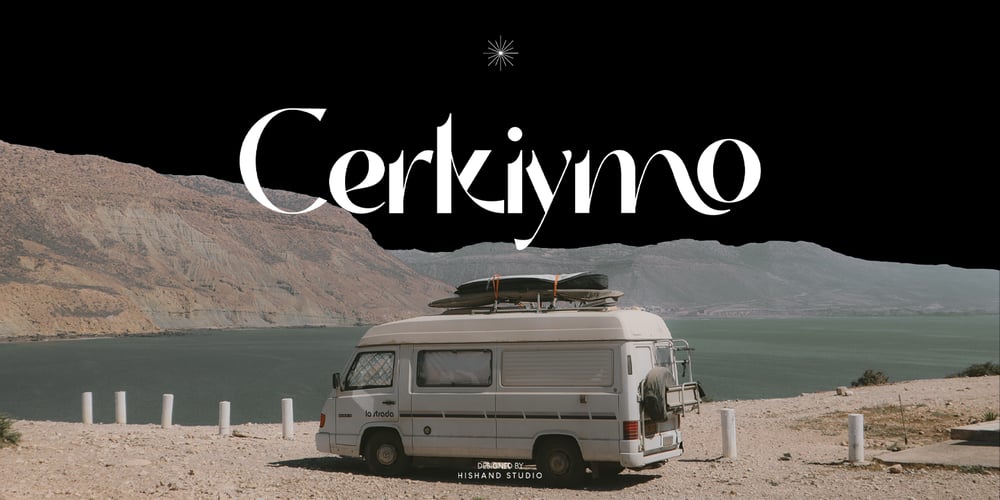
Cerkiymo
Cerkiymo font
Cerkiymo Font Family was designed by Putu Dody Permana and published by Hishand Studio. Cerkiymo contains 4 styles and family package options. The strokes of the Cerkiymo font dance gracefully across the page, exuding an air of elegance and freshness. With its delicate curves and refined lines, the Cerkiymo font lends an elegant touch to any design, breathing a fresh sense of sophistication into each word. Perfect for logos, branding, invitations, stationery, wedding designs, social media posts, and much more. Complete with ligatures alternates regular italic hollow icon kerning multilingual support